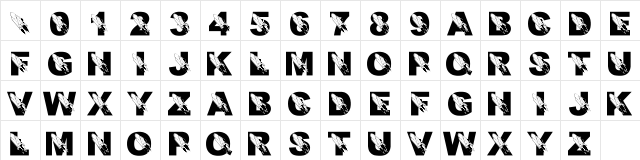
LMS Remembering SS Columbia Regular
Design Context for LMS Remembering SS Columbia
LMS Remembering SS Columbia is a composed and adaptable typeface that performs quietly and consistently across a wide range of design contexts.